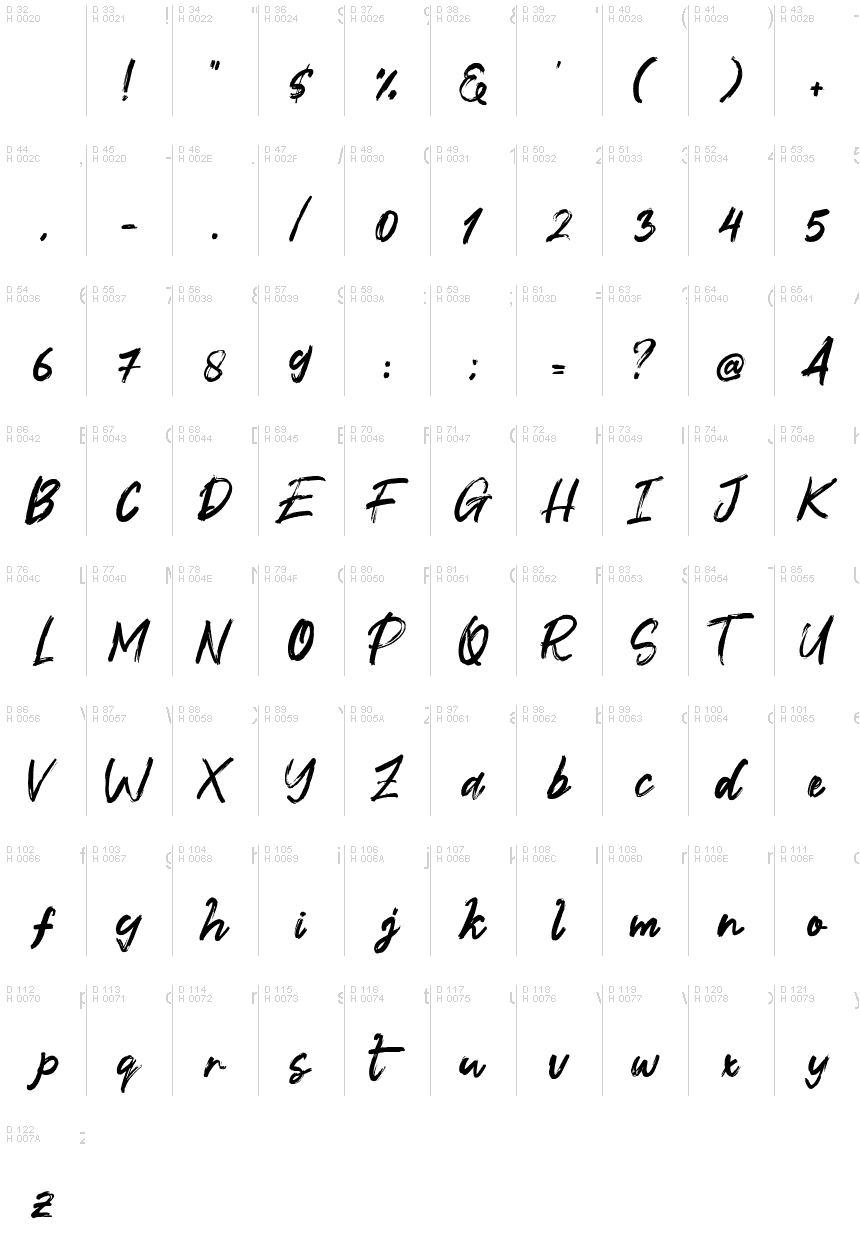
Fontix
Fontix, the newest brush font designed by Khurasan, is here to add a touch of creativity and personality to your projects. With its unique stroke style and playful feel, Fontix is perfect for branding projects, social media graphics, and even packaging designs. Its semi-bold width makes it easy to read while still standing out from standard fonts. Whether you're designing a logo for an artsy startup or creating social media posts for a trendy cafe, Fontix will give your work that extra edge it needs. Try out this versatile typeface today and watch your designs come to life!